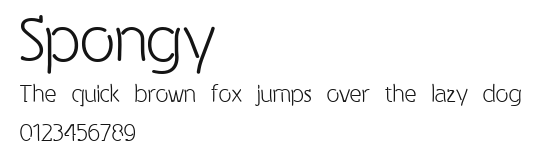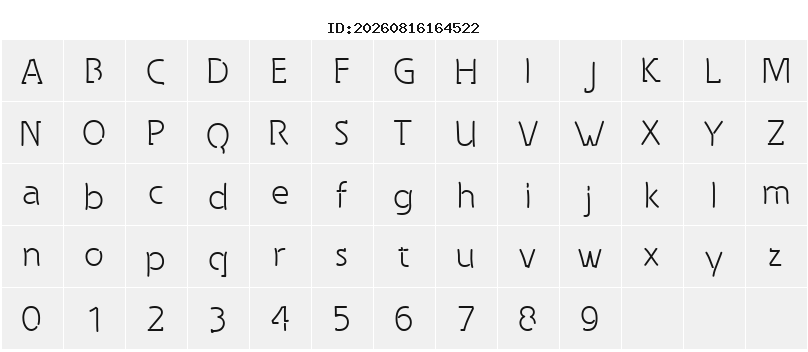
• Font Name: Spongy
• Font ID: Spongy Thinsville by Ray Larabie
• Full Font Name: Spongy Thinsville
About Spongy.ttf
Spongy.ttf is a modern, elegant sans-serif font designed for ultimate readability and visual harmony. Perfect for branding, headlines, web design, and print materials.